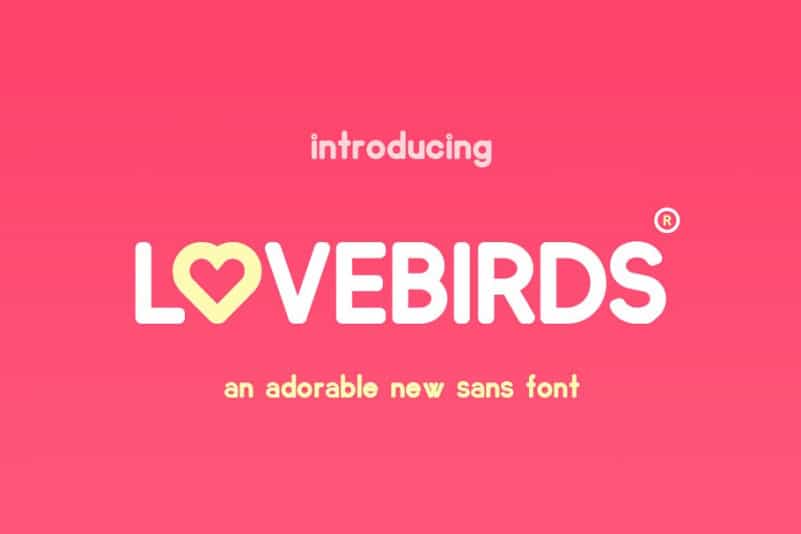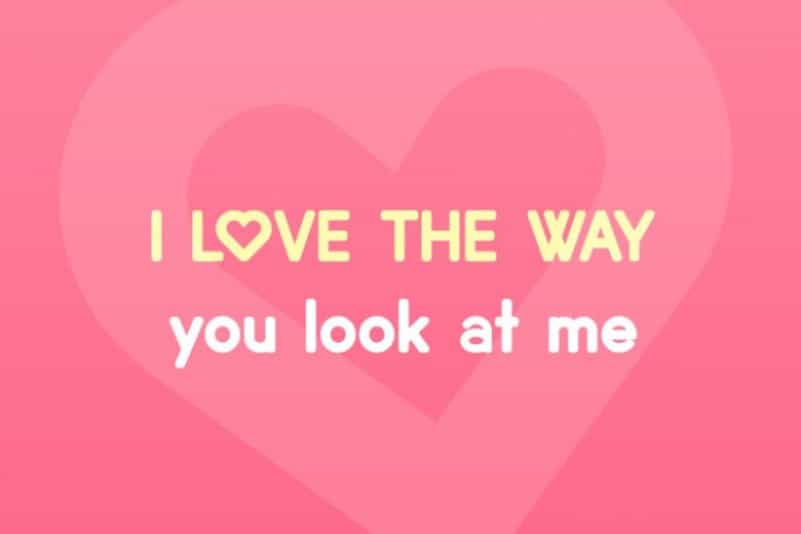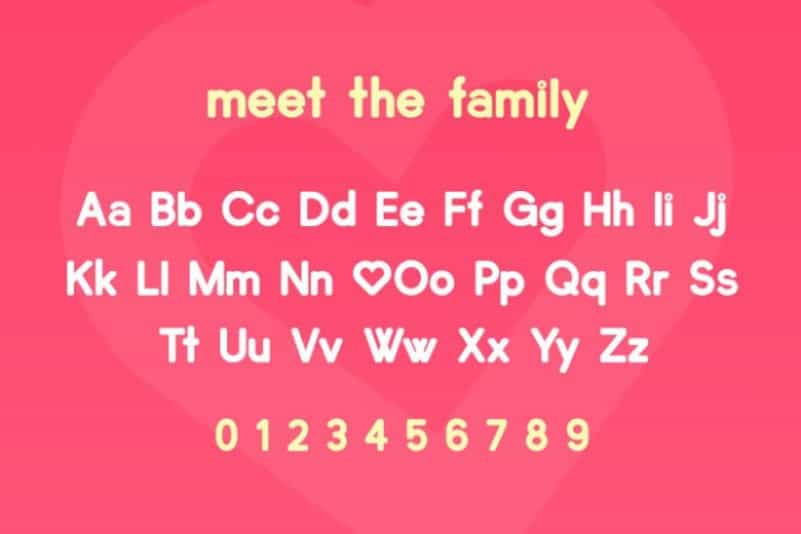
Discover Lovebirds Sans Font, part of the Sans Serif Display collection—a versatile and unique font perfect for adding a personal touch to your projects. Download it for free and enjoy crafting designs with style, from invitations to social media posts. This font is available exclusively for personal use, giving you the freedom to create without limits. Unlock your creativity with Lovebirds Sans Font today!
Lovebirds Sans Font is a fabulous new font that’s easy to pair with others but it’s strong enough to stand alone! For all you lovers out there… and even if you’re not in love, but love fonts.. this ones for you too!